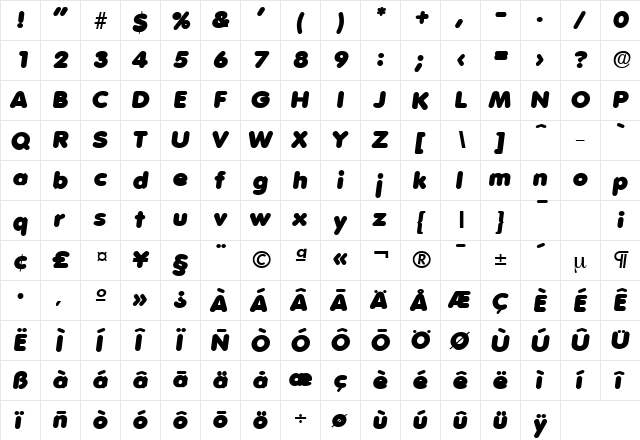
Volkswagen-Serial-Black DB RegularItalic
Design Context for Volkswagen-Serial-Black DB Typeface
Volkswagen-Serial-Black DB offers clean, dependable letterforms without strong stylistic allegiance, making it a practical choice for designers who need flexibility. The slanted form adds forward momentum and visual energy.
Pro Tip: Use Volkswagen-Serial-Black DB for emphasis, pull quotes, and subheadings where its slanted energy can add rhythm to the layout.